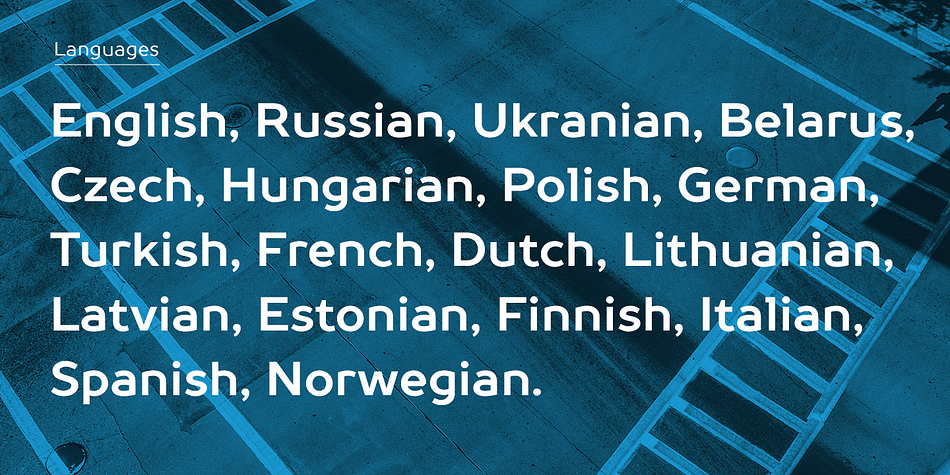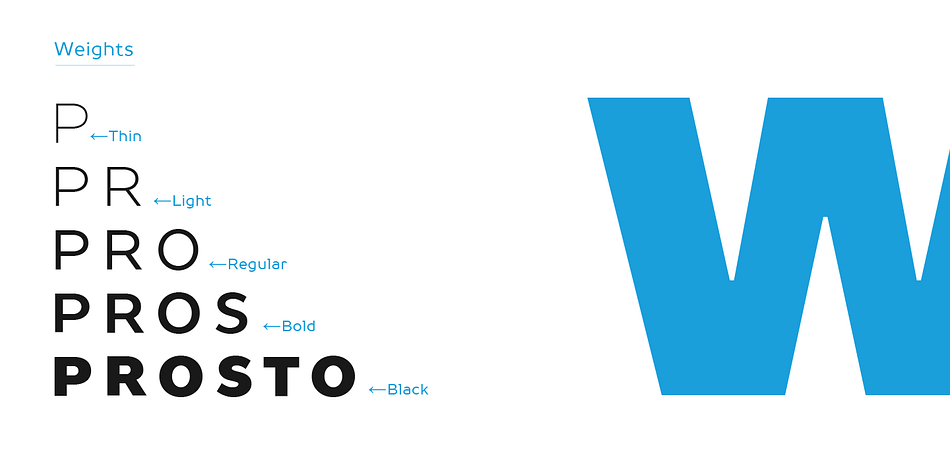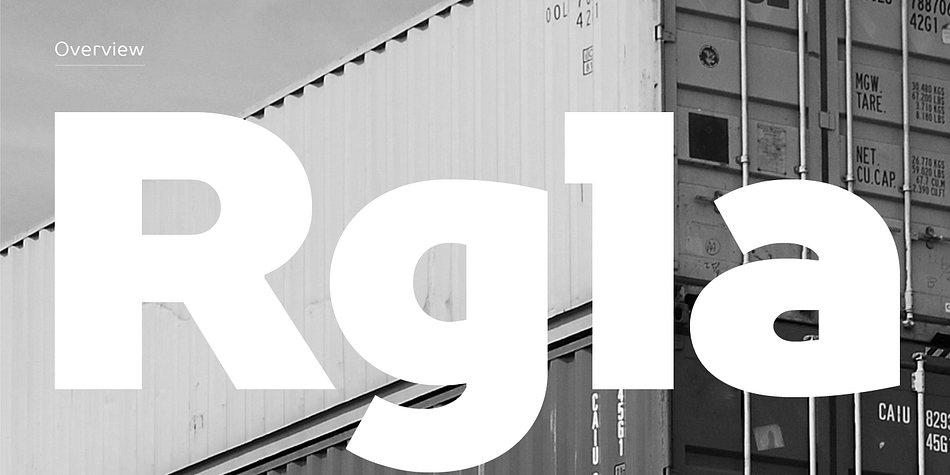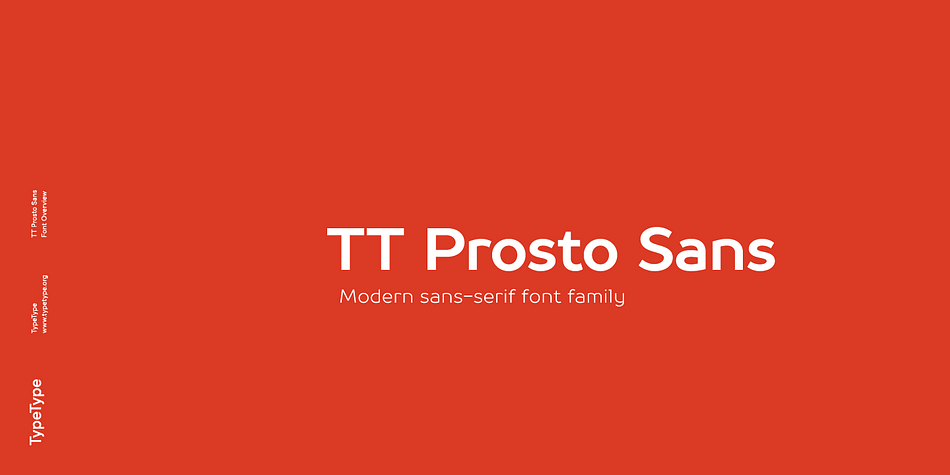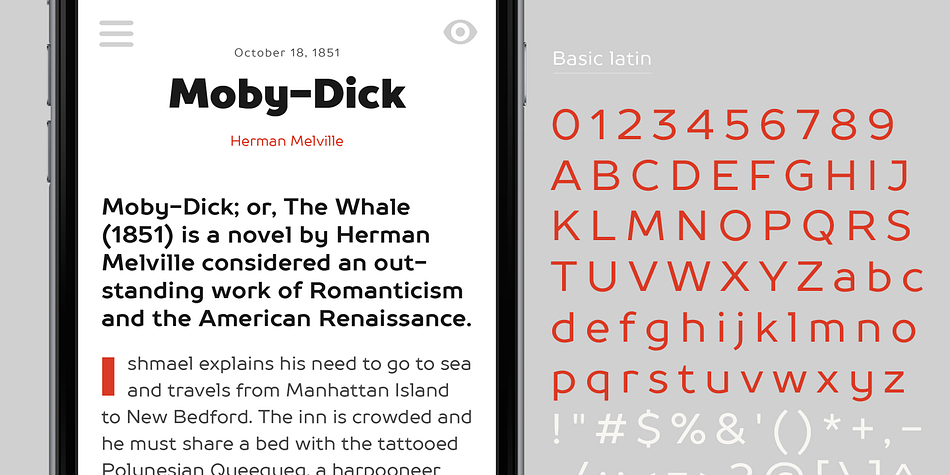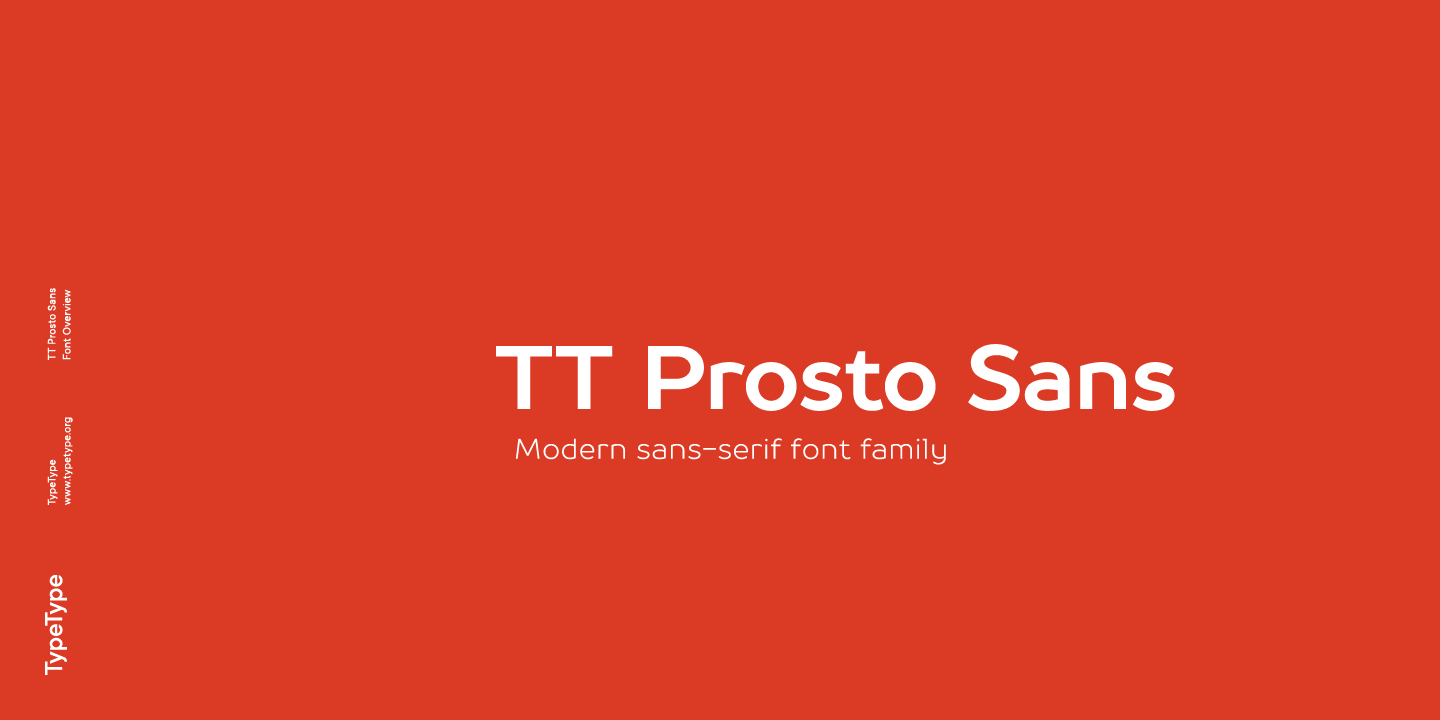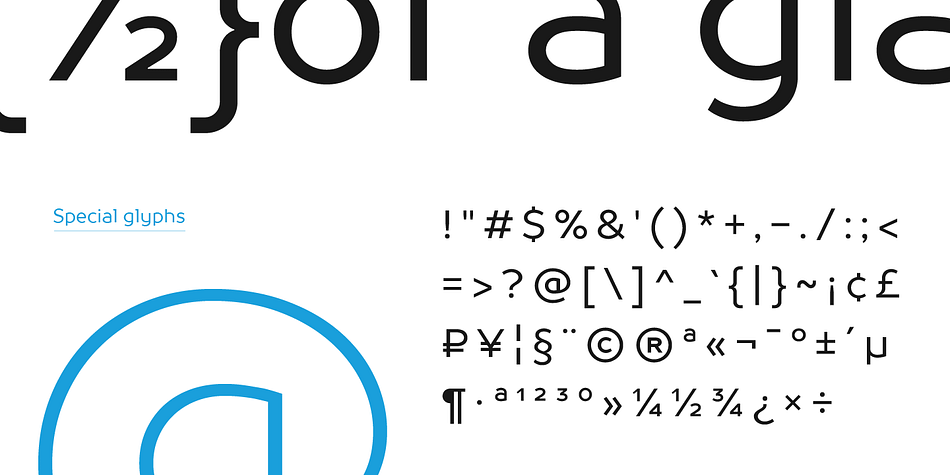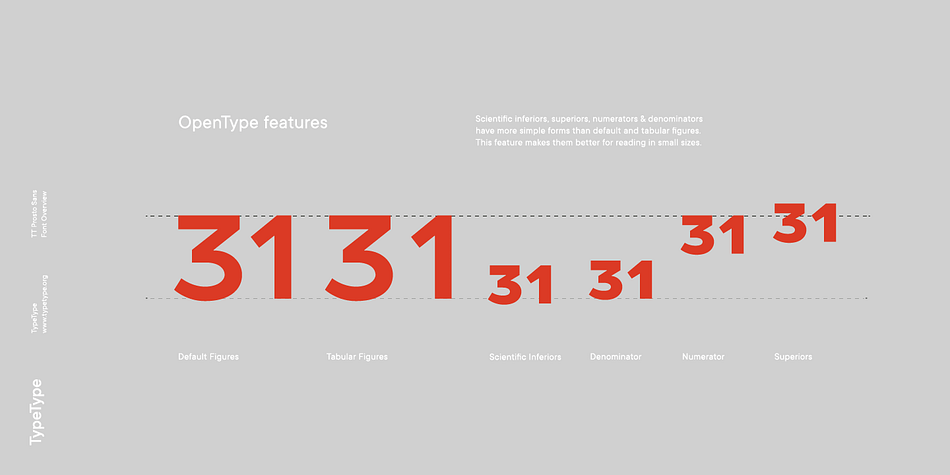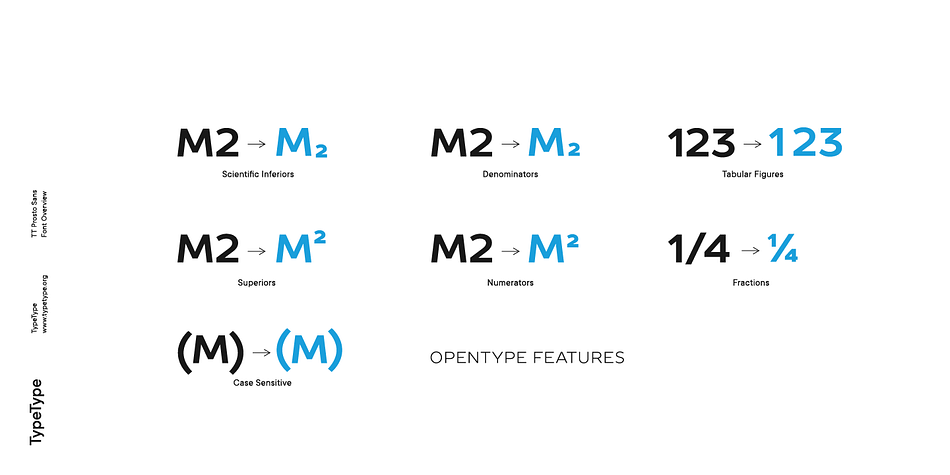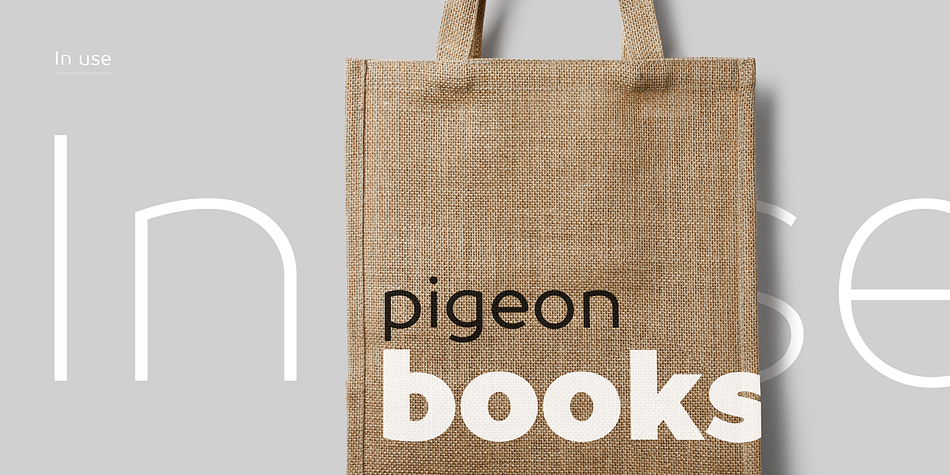
Designed by Ivan Gladkikh, TT Prosto Sans is a sans serif font family. This typeface has ten styles and was published by Typetype.
Prosto Sans is a quality sans serif font family created for casual use in interactive environments. This font family was based on the legendary Prosto free font. We added new typefaces and support for many codepages and languages.
The fonts are very convenient to use in web, mobile apps and in desktop computers. The font family Prosto Sans contains many languages and alphabets, and is compatible with other TypeType fonts.